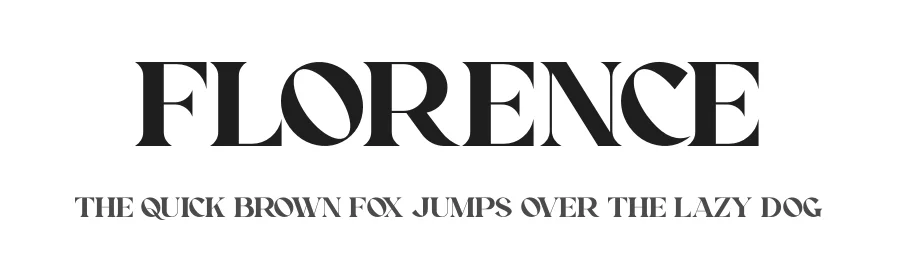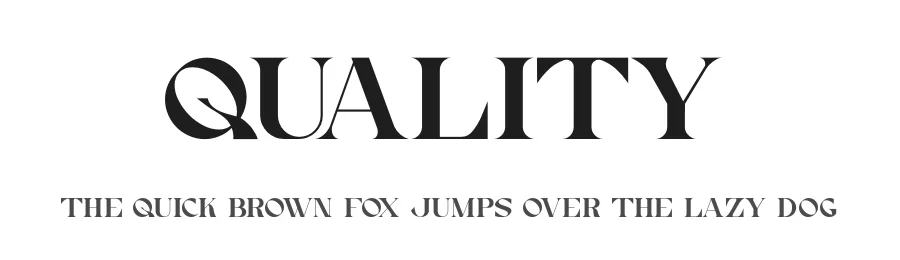
About Kara Font
Kara Font is a versatile serif font that works for both headings and body text. Pair it with a contrasting sans-serif or slab serif font to add visual interest and a clear distinction between titles and body copy.